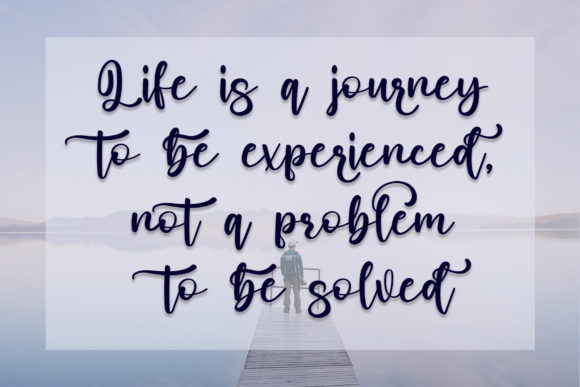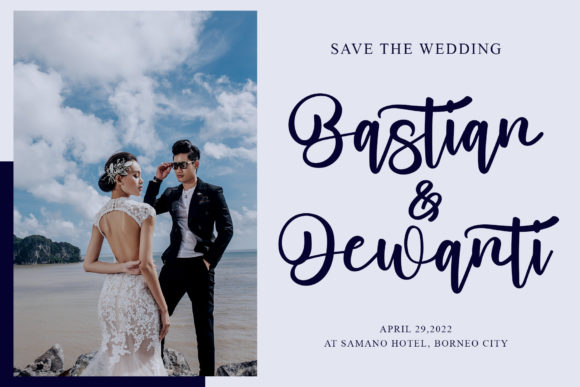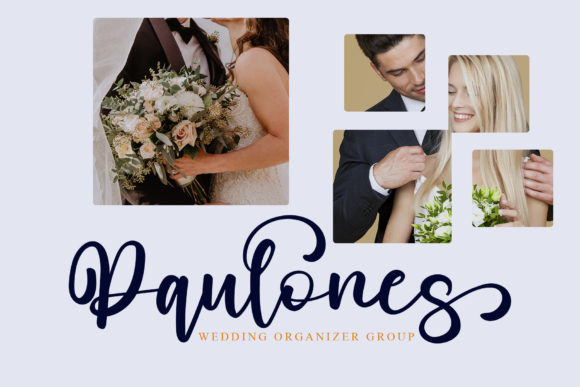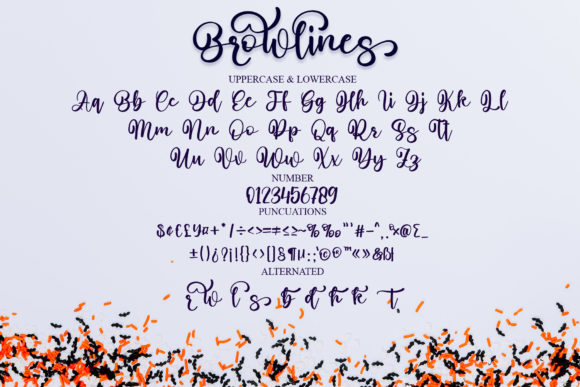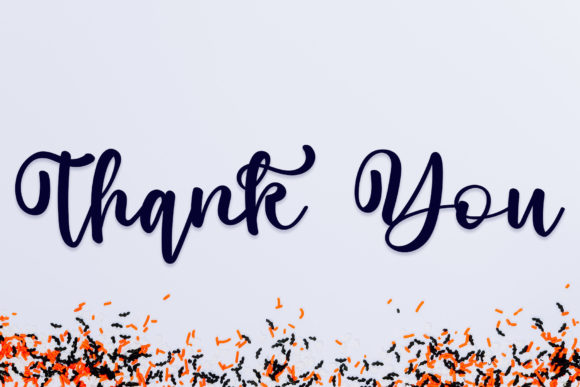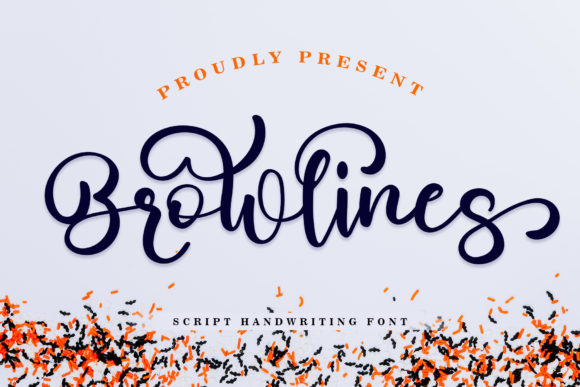
Browlines Font: The Sweet and Romantic Script Font for Designers and Crafters
Are you looking for a beautiful and elegant script font to elevate your designs? Look no further than Browlines Font! This stunning font is perfect for designers and crafters who want to add a touch of romance and sweetness to their projects. In this article, we’ll dive into the features and benefits of Browlines Font, and explore how it can be used to take your designs to the next level.
A Beautiful and Elegant Script Font
Browlines Font is a sweet, romantic, and beautiful script font that features beautiful curves in every letter. Its elegant and flowing design makes it perfect for a variety of design projects, from wedding invitations and stationery to branding and packaging. Whether you’re a professional designer or a crafter, Browlines Font is sure to impress with its sophisticated and refined look.
One of the standout features of Browlines Font is that it’s PUA (Private Use Area) coded. This means that you can access all of the glyphs and sweeps with ease, giving you complete creative control over your designs. With PUA coding, you can easily access and use the font’s built-in swashes, ligatures, and other special characters to add a personal touch to your designs.
Browlines Font is perfect for designers and crafters who want to create beautiful and unique designs. Whether you’re working on a commercial project or a personal craft project, this font is sure to inspire. Its elegant and romantic design makes it perfect for:
- Branding and packaging
- Signs and posters
- Digital art and illustrations
- Craft projects, such as scrapbooking and card making
Browlines Font offers a range of features and benefits that make it a must-have for designers and crafters. Some of its key features include:
- Beautiful and elegant script design
- PUA coded for easy access to glyphs and sweeps
- Perfect for a variety of design projects
- Elegant and refined look
Tips for Using Browlines Font
Here are some tips for using Browlines Font in your designs:
- Use it as a headline font to add a touch of elegance and sophistication
- Pair it with a sans-serif font for a modern and stylish look
- Use the font’s built-in swashes and ligatures to add a personal touch
| Font Name | Browlines Font |
| Author | Bintang Studio |
Browlines Font is a beautiful and elegant script font that’s perfect for designers and crafters who want to add a touch of romance and sweetness to their designs. With its PUA coding and range of features and benefits, it’s a must-have for anyone looking to elevate their designs. Whether you’re working on a commercial project or a personal craft project, Browlines Font is sure to inspire and impress.